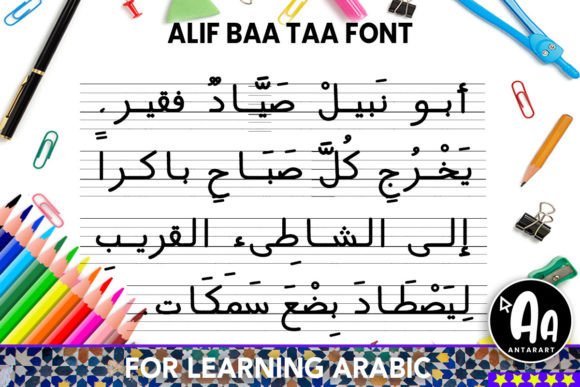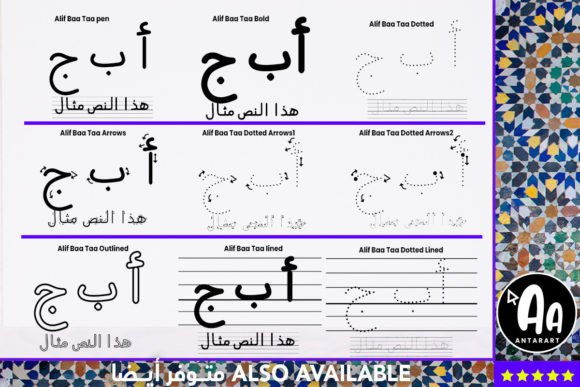
Alif Baa Taa Lined Font
About Alif Baa Taa Lined Font
Alif Baa Taa LinedFont is a practical handwritten Arabic typeface created to simplify the process of teaching and learning Arabic. Its lined design makes it especially useful for worksheets, textbooks, and e-learning materials. With its clear structure and educational focus, Alif Baa Taa Lined Font is a valuable resource for teachers, students, and anyone interested in mastering the Arabic language.
A Handwritten Arabic Typeface for Education
Fonts designed for education need to be legible and functional, and Alif Baa Taa Lined Font achieves both. Its lined structure helps learners align and form letters consistently, ensuring correct writing habits from the start. Moreover, the handwritten style provides authenticity, making practice feel closer to real handwriting. As a result, this typeface is an essential tool for educators looking to create effective Arabic learning resources.
Perfect Typeface for Worksheets and Teaching
For teachers, Alif Baa Taa LinedFont is a time-saving solution for developing worksheets. For example, it can be used to design lined practice sheets that allow students to write letters accurately within a guide. In addition, it works well for flashcards, lesson materials, and handwriting practice books. Because of its lined format, students can focus on consistency, improving both their accuracy and confidence.
A Typeface for Students and Self-Learners
Students and independent learners will also find Alif Baa Taa LinedFont very helpful. It allows beginners to engage with the Arabic alphabet step by step, improving their handwriting and understanding of letterforms. Furthermore, it can be combined with dotted or outlined Arabic fonts to create progressive learning materials. This layered approach makes the font suitable for learners at different stages.
Flexible Across Print and Digital Platforms
Another strength of Alif Baa Taa LinedFont is its adaptability across mediums. In print, it works perfectly for textbooks, worksheets, and classroom handouts. Digitally, it can be used in e-learning modules, educational apps, and interactive presentations. Since it scales clearly across different sizes, the font is equally effective for small handwriting sheets and larger educational posters.